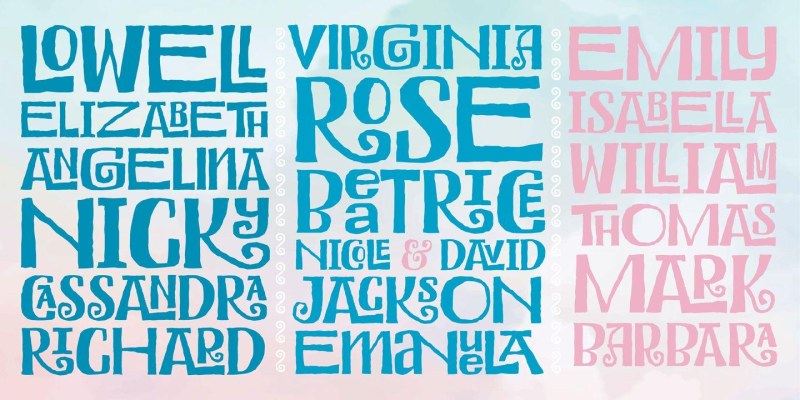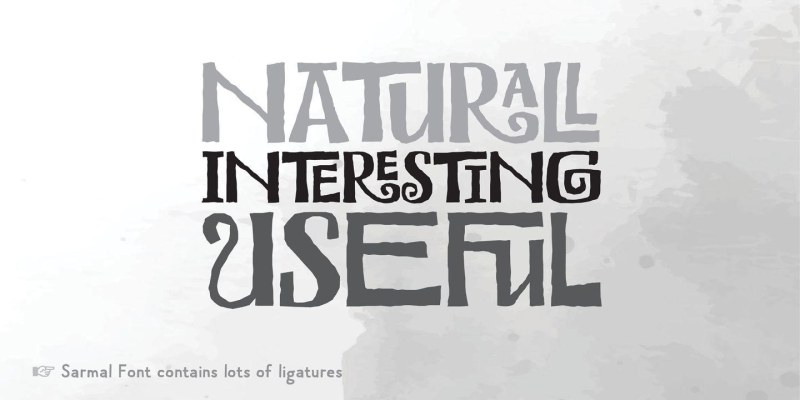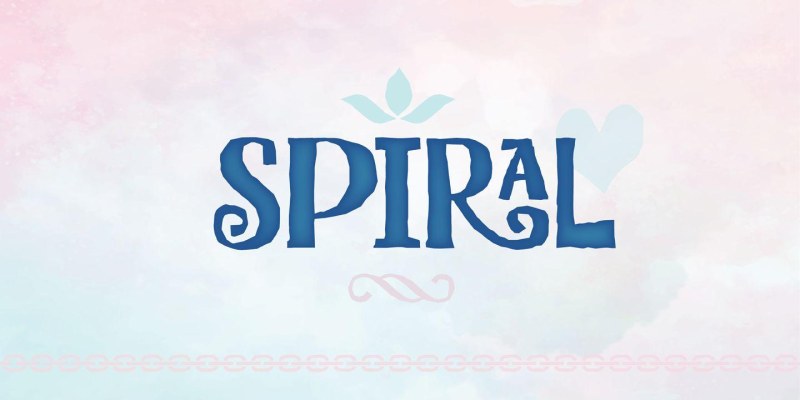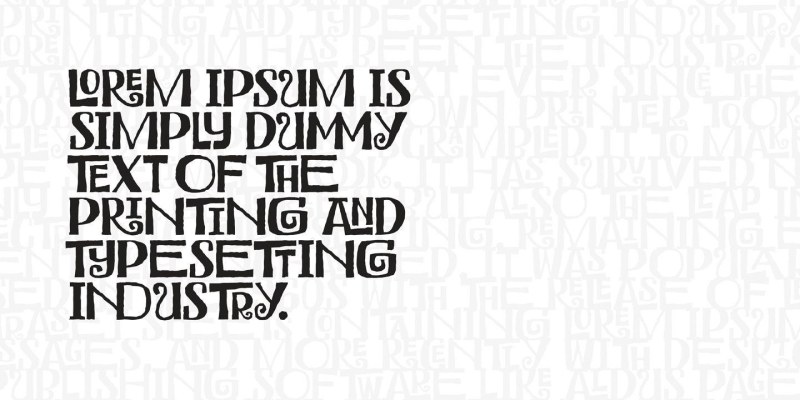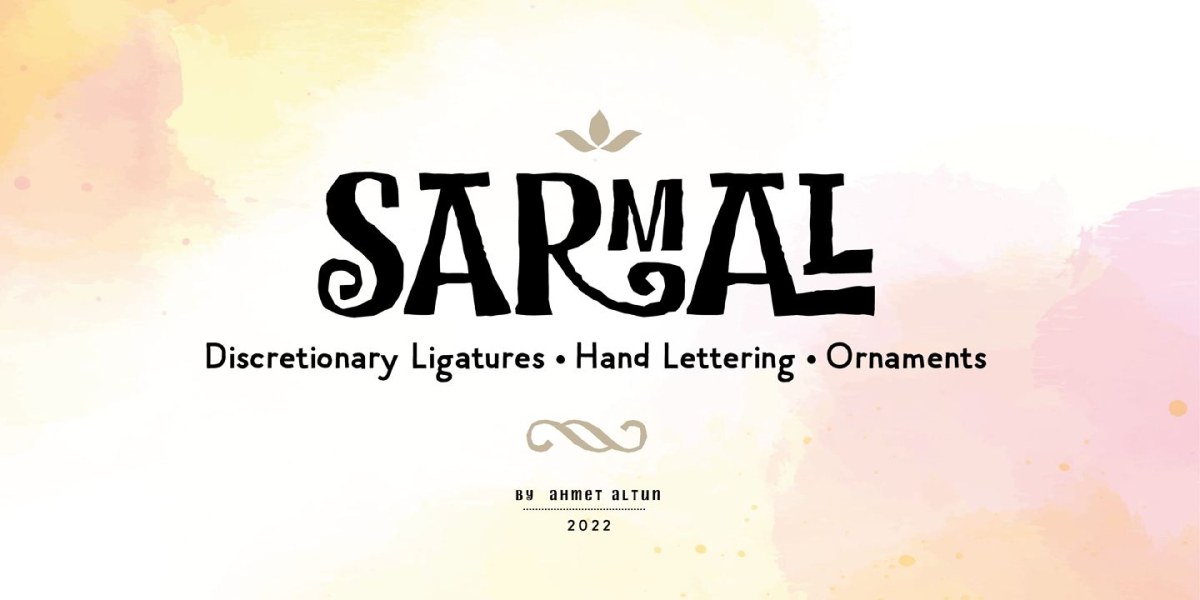
Sarmal Font
The sarmal font contains ligatures that are functional and useful. It can be a stylish font choice for your posters, t-shirts, prints and many more works.
Sarmal Font is a Display Fonts font that brings a professional and versatile look to your projects. The sarmal font contains ligatures that are functional and useful.